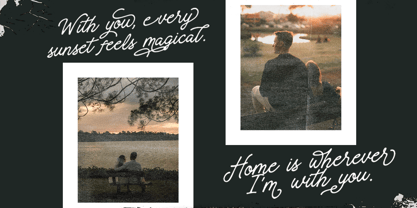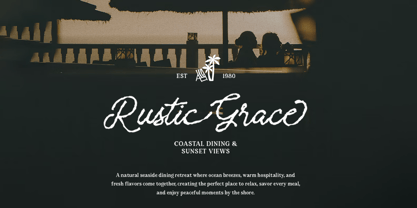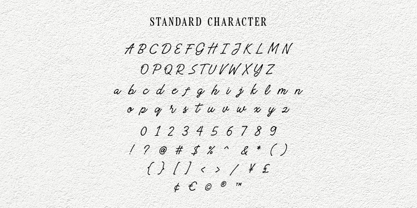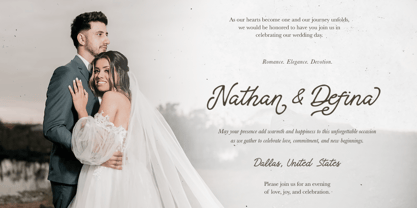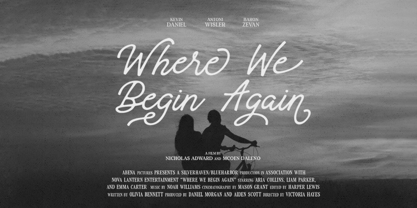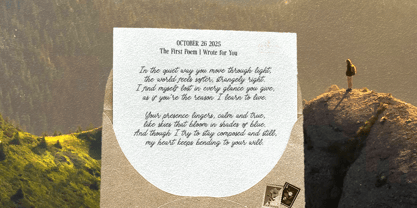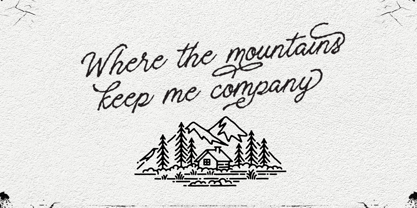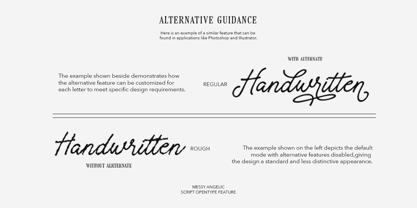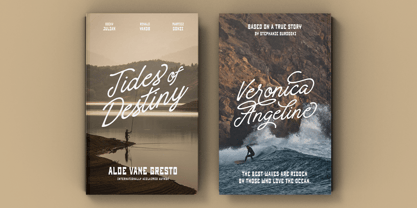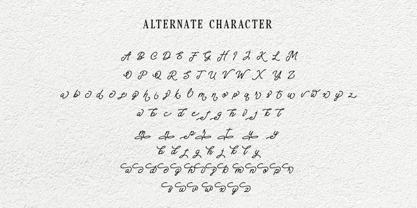
Messy Angelic
by Bale Type
The Messy Angelic Font Family was designed by Liwa Shidqy and published by Bale Type. Messy Angelic contains 2 styles and family package options. More about this family
Messy Angelic is a stylish handwritten script with bunch of alternates. This fonts come with regular and rough style. You can use this font for any purposes such as wedding invitation, branding, quotes, poster, or any design that need beautiful hand touch vibes. The rough version will make your project looks even more handcrafted and raw. This font also support multi language.
Designers: Liwa Shidqy
Foundry: Bale Type